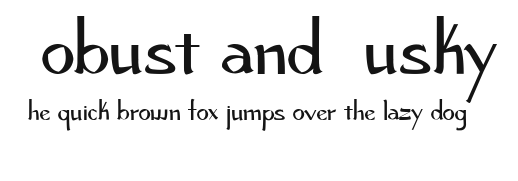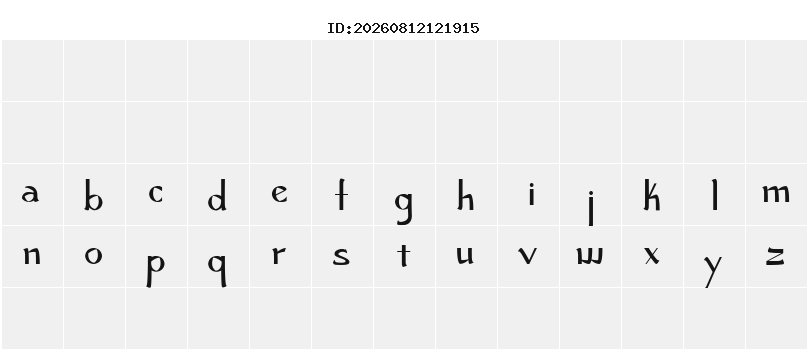
• Font Name: Robust and Husky
• Designer: Laura Kammermann
Robust and Husky.ttf is a modern, elegant sans-serif font designed for ultimate readability and visual harmony. Perfect for branding, headlines, web design, and print materials.